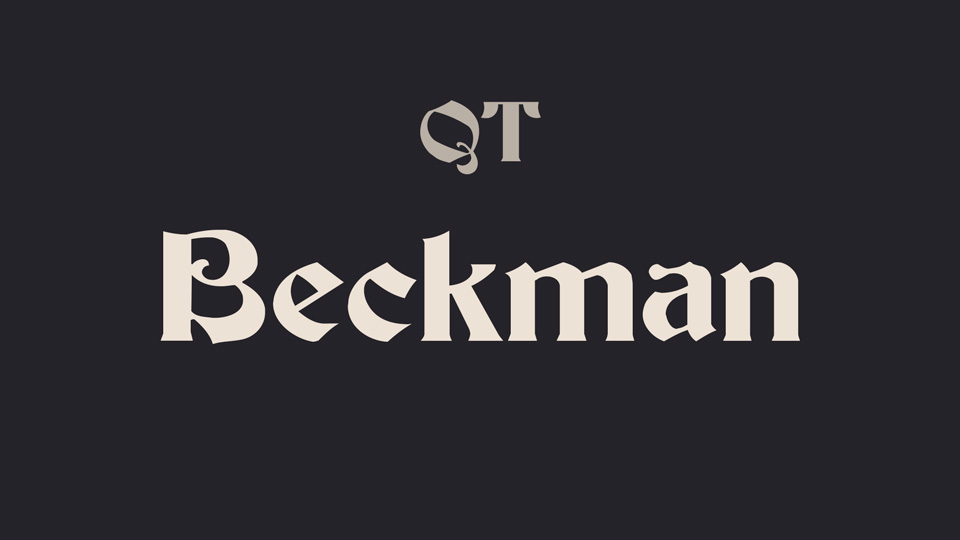
Download QT Beckman font, a modern gothic typeface with bold and sharp look. Beckman font is best suited for headlines and posters, short paragraphs of text.